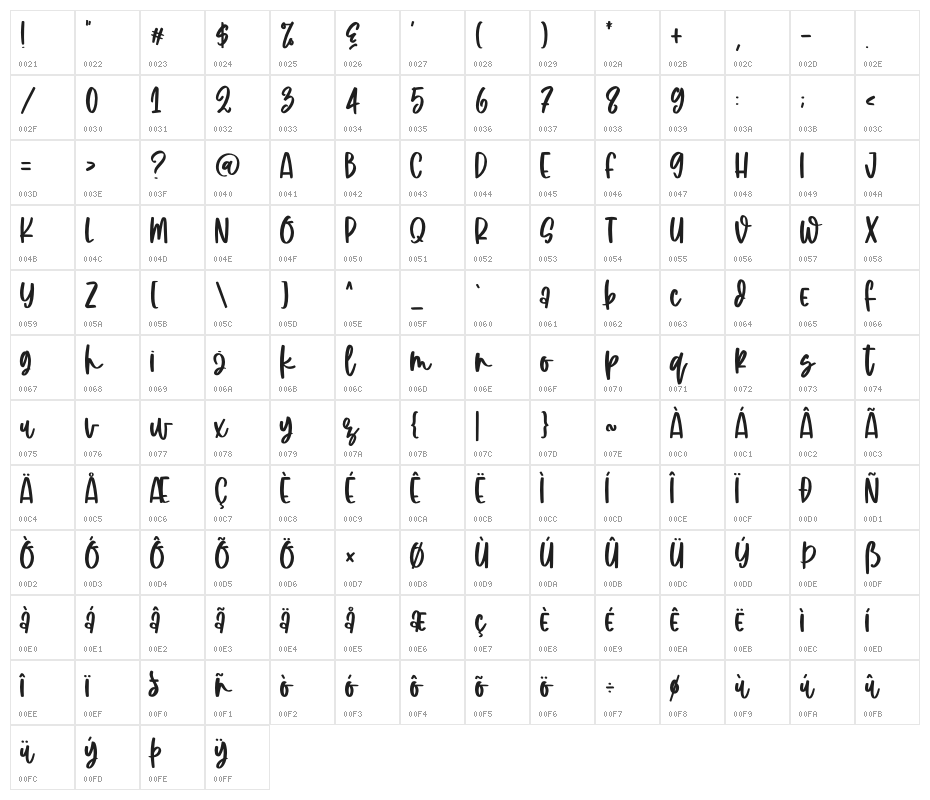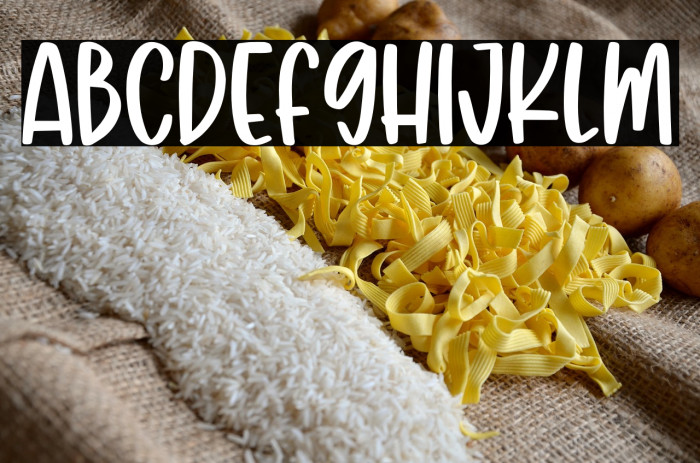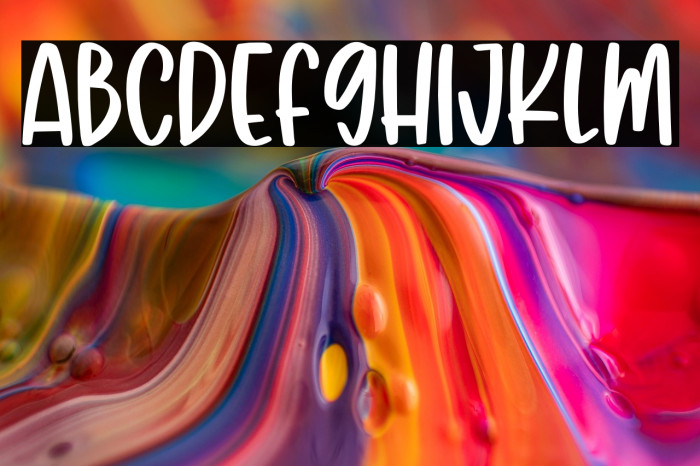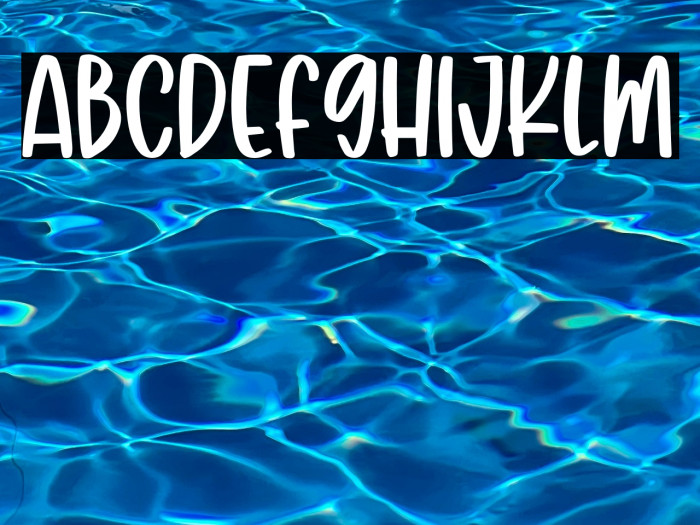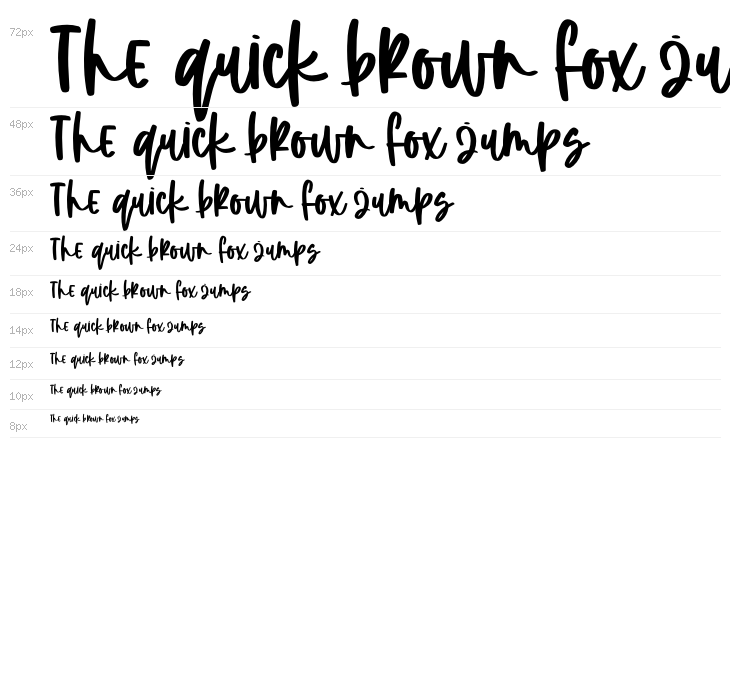
Winter End Font
Winter End Description
This font features a playful and energetic handwritten style, characterized by its bold and flowing strokes. The uppercase letters are tall and slightly narrow, giving a sense of height and elegance, while the lowercase letters are more rounded and connected, adding a casual and friendly touch. The numbers are consistent with the overall style, maintaining the same boldness and fluidity. Special characters are creatively integrated, enhancing the font's versatility. The font's design is both modern and approachable, making it suitable for a variety of creative projects.
| Use Case | Logos, Headlines, Social Media Graphics |
| Proposed Projects | Ideal for greeting cards, social media graphics, branding projects, and playful invitations. |